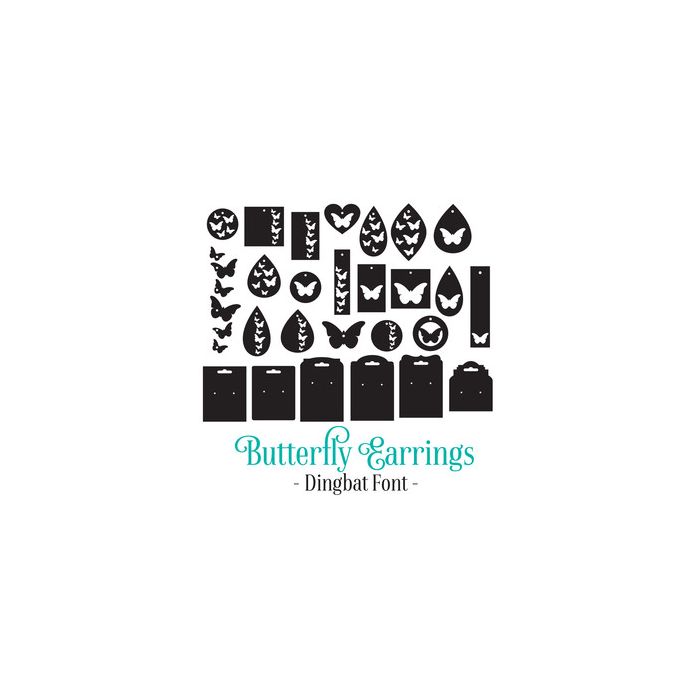
Butterfly Earrings Dingbat Font. Contains 20 earrings and 6 earrings backer cards with euroslot at the top. Allocated to upper and lower case letters. All can be accessed via glyphs. My other fonts can be found right here in the Silhouette store!